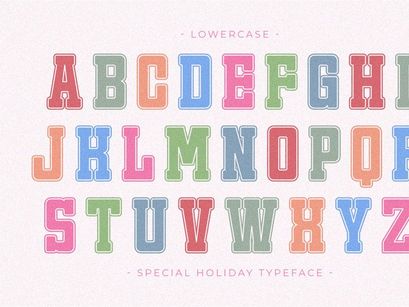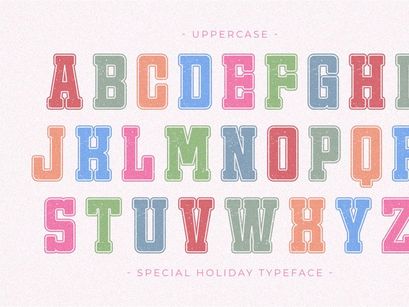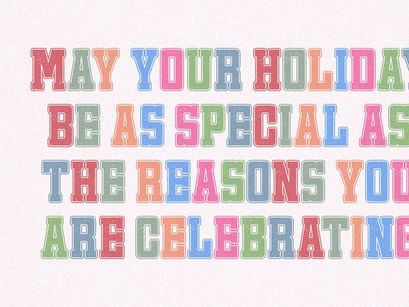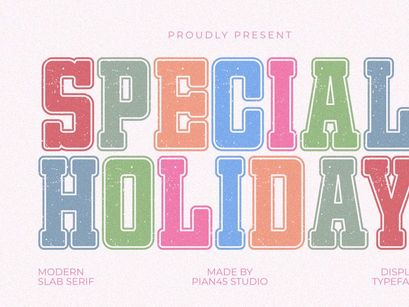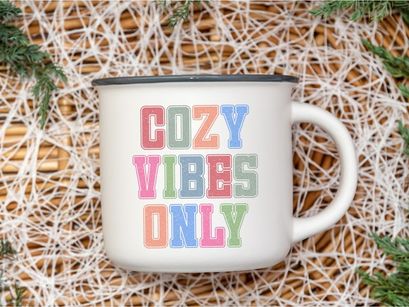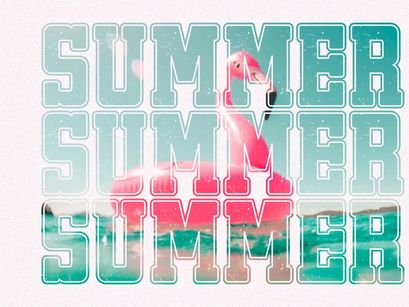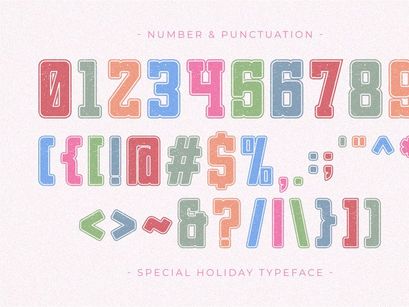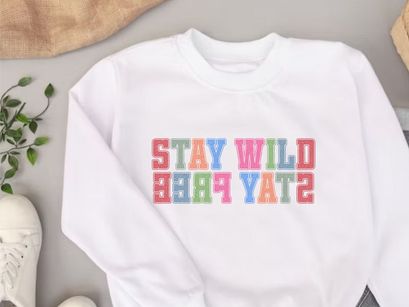
Special Holiday is a vibrant and bold Modern Slab Serif font designed to bring a festive and joyful spirit to your creative projects. This Display Typeface features a unique blocky structure with softened rounded corners and a subtle vintage texture. With its eye-catching layered outline style, it is perfect for holiday greeting cards, seasonal branding, cheerful merchandise, and standout event posters. Whether for Christmas, summer festivals, or special celebrations, this all-caps font adds a touch of playful energy and professional charm to any design.